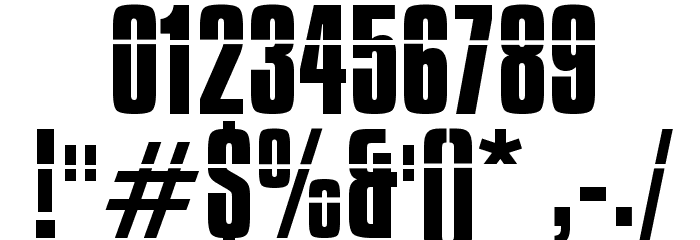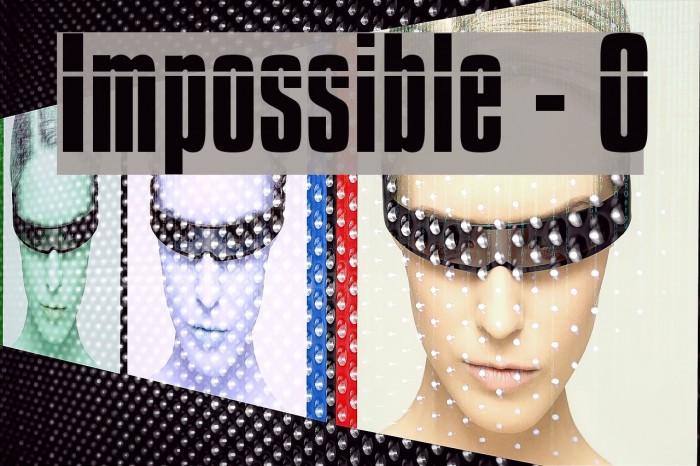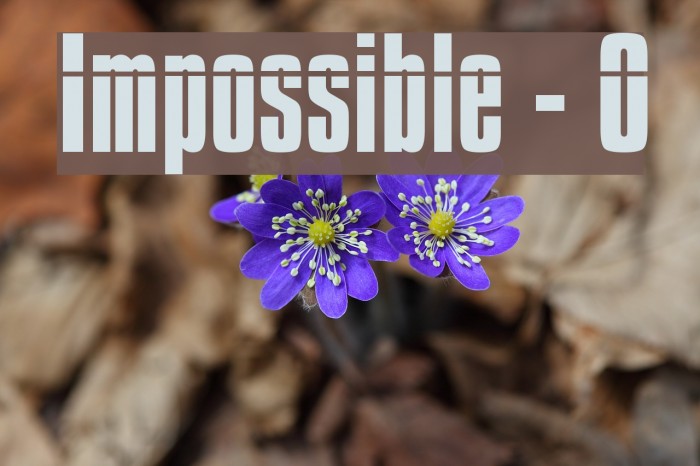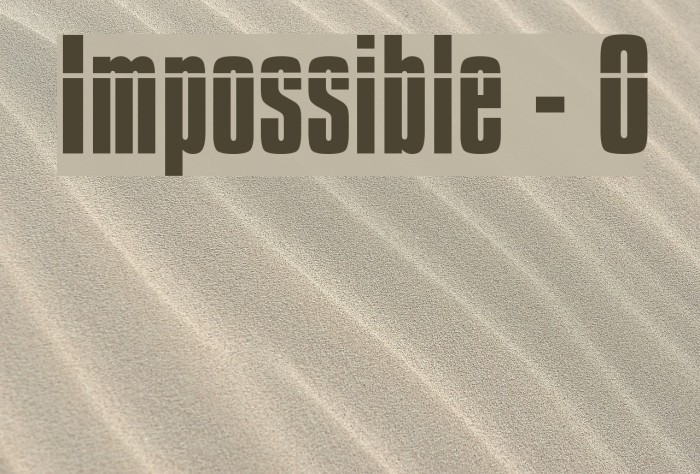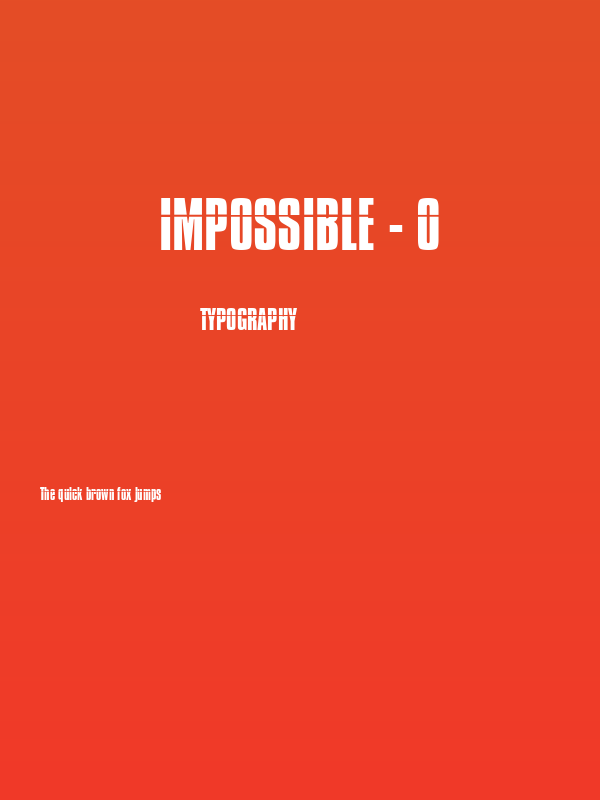
Impossible - 0 Font
Impossible - 0 Description
This font is a bold and impactful typeface characterized by its thick, block-like letters. The uppercase and lowercase letters share a consistent width, contributing to a uniform appearance. The font features a condensed style, making it ideal for creating a strong visual impact in limited space. The characters are tightly spaced, enhancing the boldness and making it suitable for attention-grabbing headlines. The numbers and special characters maintain the same bold and condensed style, ensuring consistency across all elements. This typeface is perfect for projects that require a modern and assertive look.
| Proposed Projects | Ideal for posters, headlines, branding, and advertising where a strong visual impact is needed. |